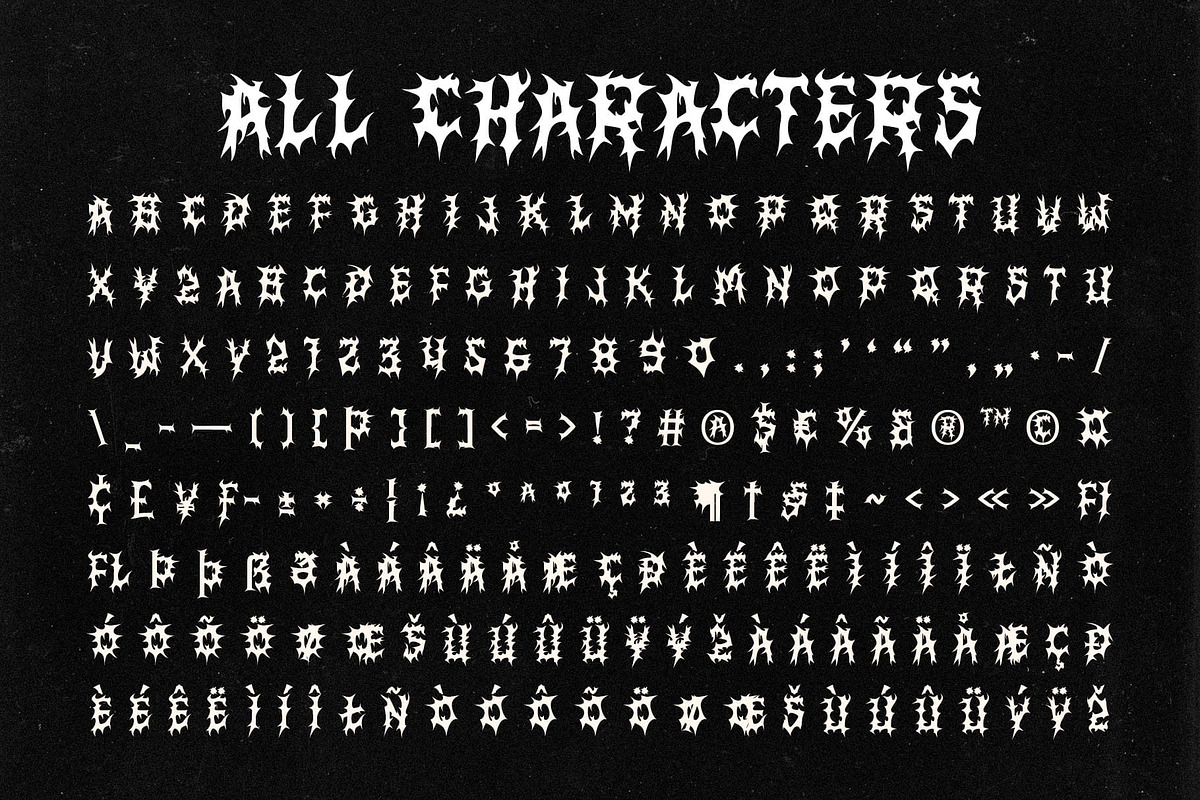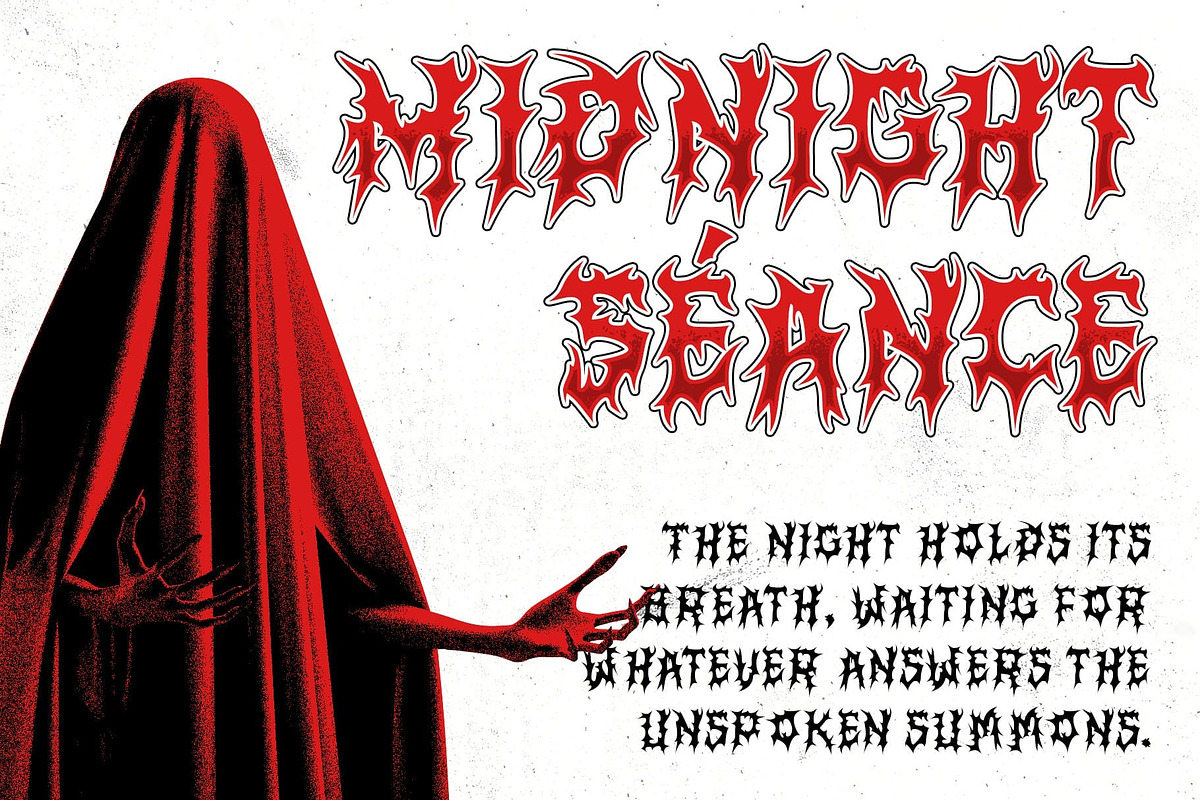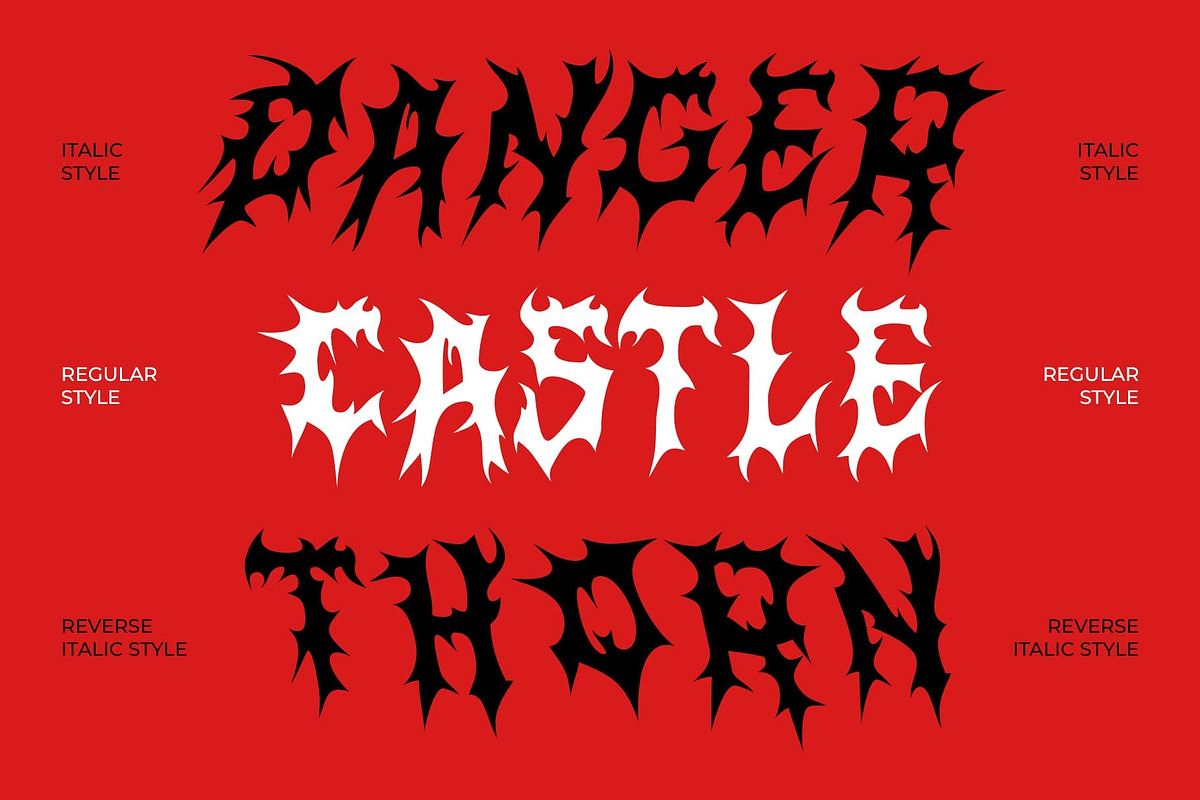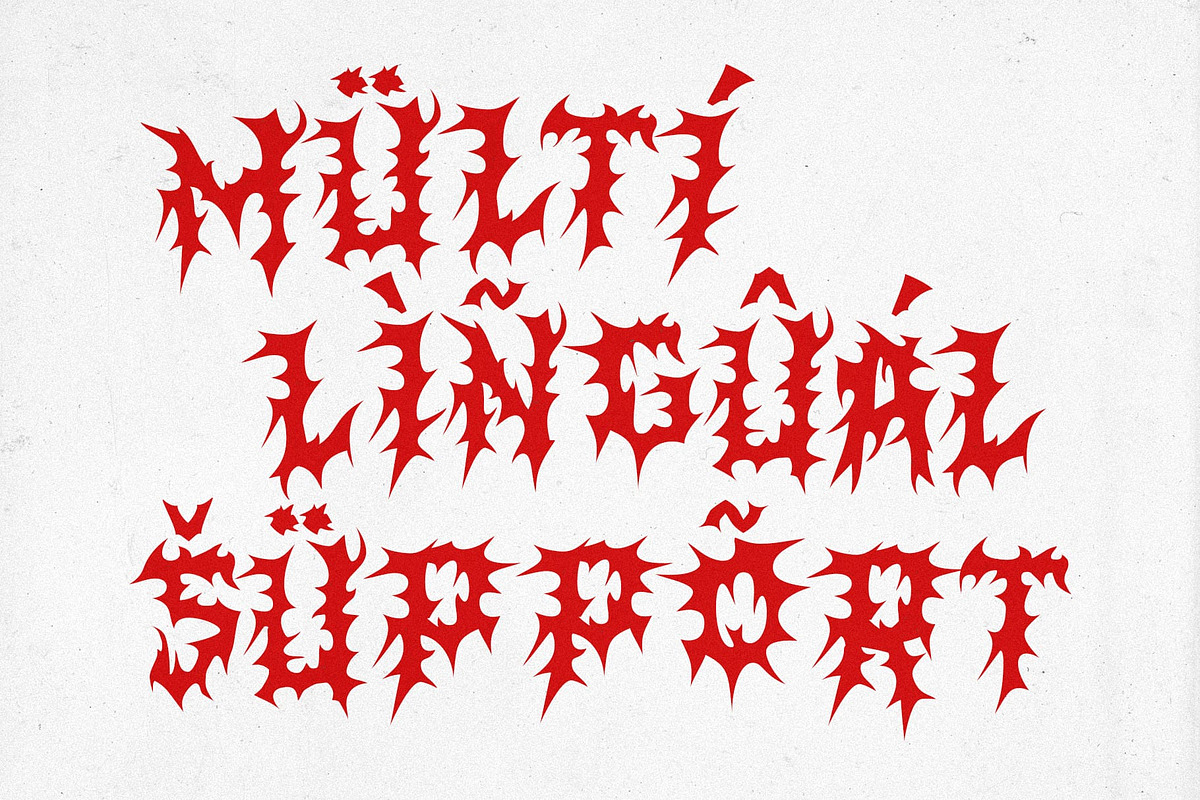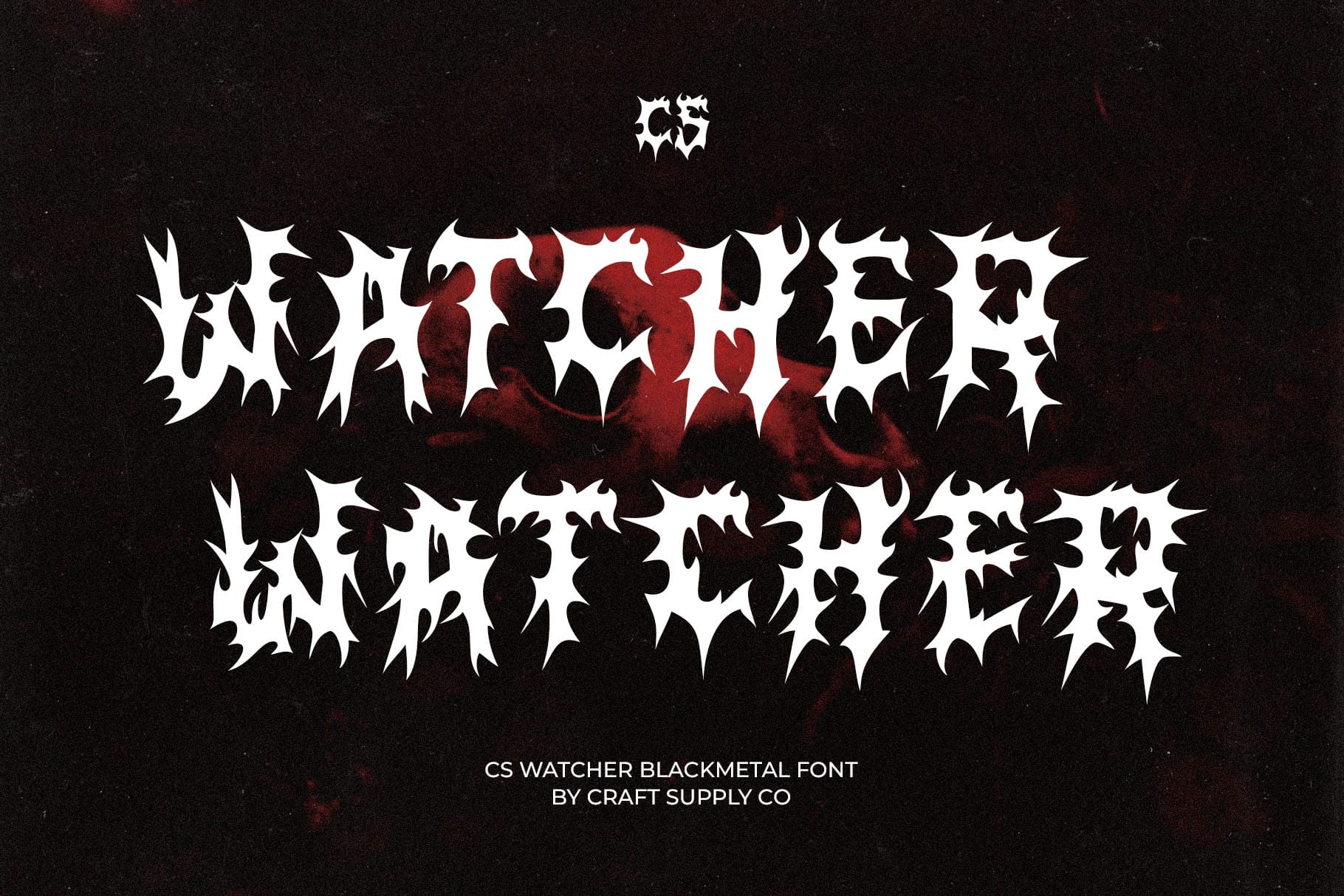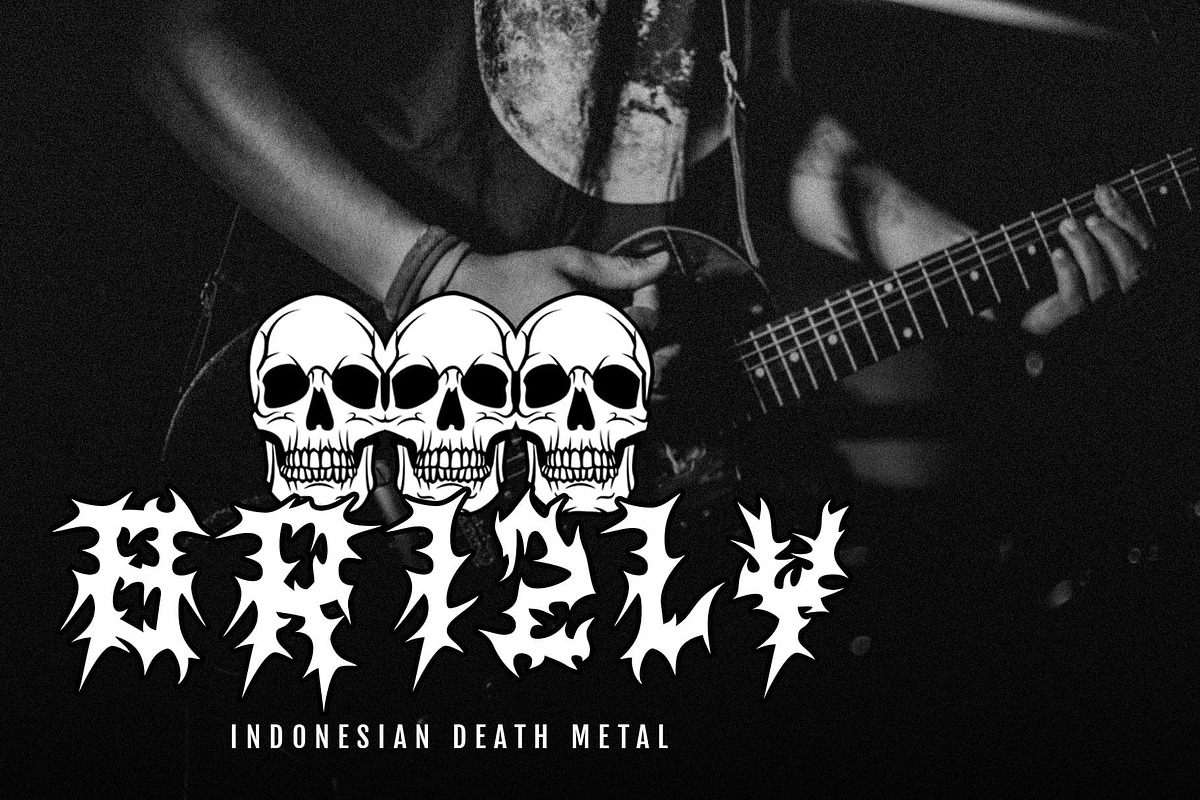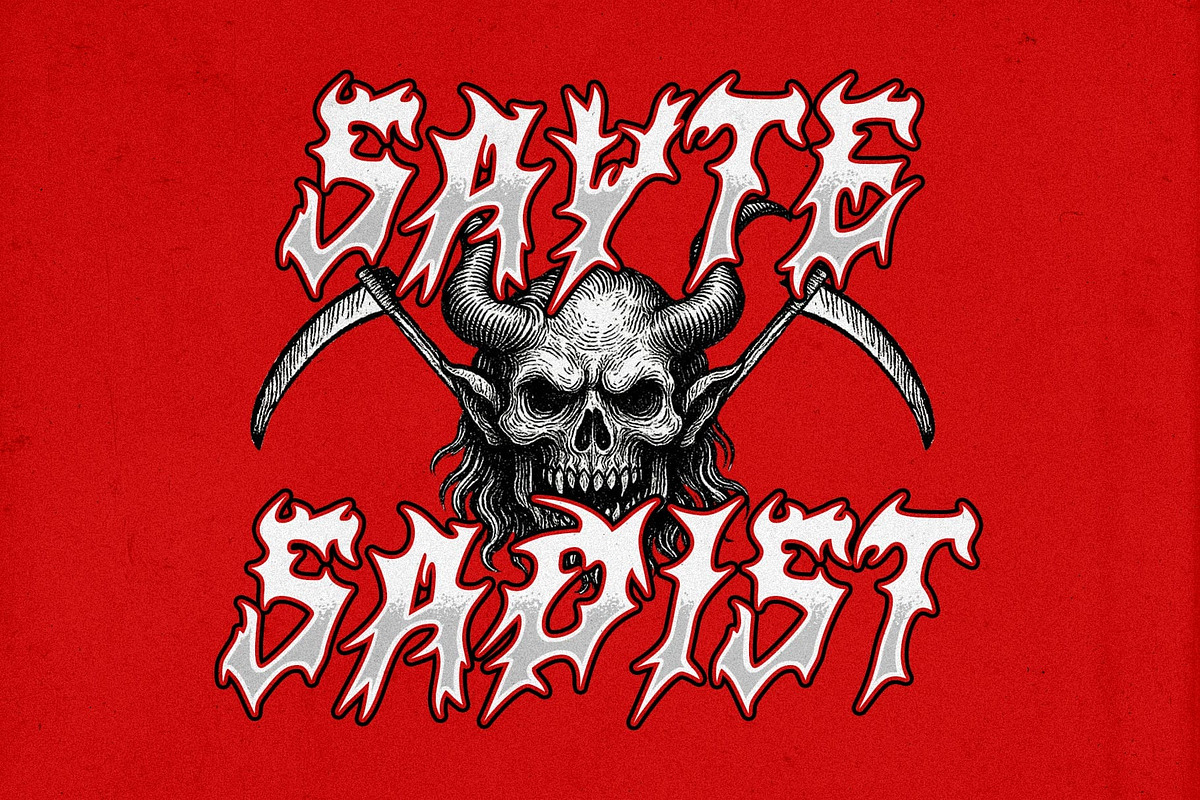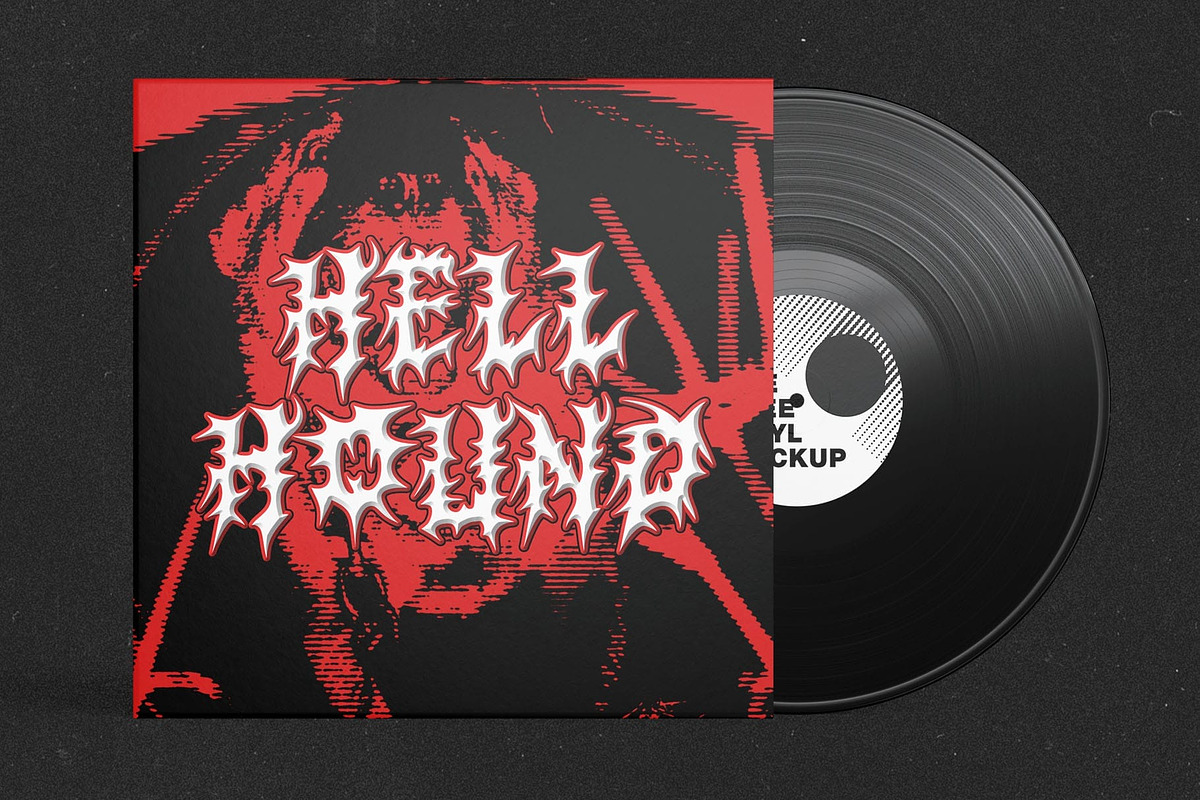
CS Watcher – Black Metal Font
CS Watcher – Black Metal Font: Where Chaos Meets Power
Raw Energy in Every Stroke This is a black metal display font forged in the depths of darkness. Defined by jagged spikes, rough edges, and chaotic strokes, it radiates aggression and raw emotion. Every letter is meticulously crafted to embody the intensity and brutality of extreme music, making it a striking choice for designers who crave bold, untamed energy in their visuals.
Aggressive Design with Distinct Identity Each character in this font carries a wild, hand-crafted rhythm that reflects rebellion and individuality. The sharp, irregular shapes create a sense of movement and danger perfectly capturing the essence of underground metal aesthetics.
Perfect for Extreme and Edgy Projects From band logos and music posters to dark-themed apparel and promotional artwork, this font brings an unmistakable attitude. Its gritty texture and intense character make it the go-to font for projects that demand impact and emotional resonance. Whether you’re designing for a black metal band or crafting visuals that echo chaos and energy, CS Watcher delivers pure visual force.
Unleash Darkness and Expression This font isn’t just a font it’s a visual anthem for rebellion and artistic freedom. It embraces imperfection and intensity, channeling the raw power of extreme music into typography. Use it to create designs that are not only seen but felt, embodying darkness, strength, and unapologetic individuality.
- CS Watcher Regular
- CS Watcher Italic
- CS Watcher Reverse Italic